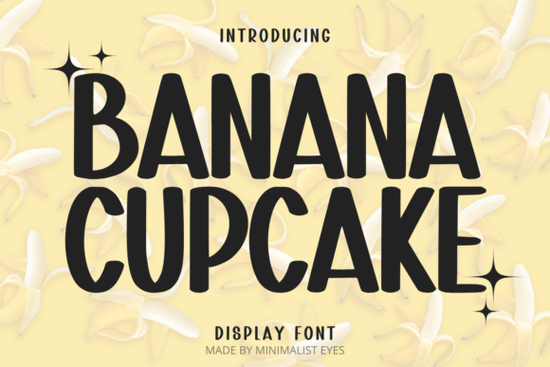
If you're looking for a cheerful, rounded typeface that works across branding, packaging, and creative projects, the Banana Cupcake Font might be exactly what you need. This playful sans-serif stands out with its soft edges and friendly personality, making it a solid pick for anyone who wants their designs to feel approachable and fun without being childish. It comes in OTF and TTF formats, plus a bonus WOFF file for web use.
What Makes This Font Feel So Playful?
The letterforms in Banana Cupcake use rounded terminals and smooth curves that give every character a soft, bubbly look. Unlike harsh geometric sans-serifs, these shapes feel warm and inviting. The consistency across uppercase, lowercase, and numbers keeps your text readable even at smaller sizes, which matters when you're designing for print or packaging where space is limited.
It's the kind of typeface that immediately sets a mood. Whether you're working on a bakery logo, a kids' activity sheet, or a social media graphic, the font does the heavy lifting in terms of tone.
Where Does This Font Work Best?
Because of its rounded, sans-serif style, this typeface fits naturally into a range of design contexts:
- Branding and logos – Perfect for businesses that want a friendly, approachable image like cafés, bakeries, toy shops, or children's clothing brands.
- Product packaging – The letterforms stay clean and legible on labels, boxes, and wraps, even at small print sizes.
- Posters and flyers – Headlines and taglines pop with personality without sacrificing readability.
- Greeting cards and invitations – Its whimsical feel works well for birthday cards, baby shower invites, and party decorations.
- T-shirt and print-on-demand designs – The bold, rounded shapes transfer well onto apparel and merchandise.
- Social media graphics – Add a splash of energy to Instagram posts, stories, and YouTube thumbnails.
If you run a small business or sell on platforms like Etsy or Redbubble, having a versatile playful font like this in your toolkit saves time when you need to create eye-catching designs quickly.
How Does It Compare to Other Fun Sans-Serif Fonts?
Each of these fonts serves a different creative need. The rounded, lighthearted energy of the Banana Cupcake design is what sets it apart from these more structured or elegant alternatives.
Is This Font Right for Your Next Project?
If your design calls for something lighthearted, rounded, and easy to read, this typeface checks all the boxes. It's not trying to be edgy or overly artistic. Instead, it delivers consistent, cheerful personality across different sizes and applications. For print-on-demand sellers, small business owners, and hobbyist designers, it's a reliable addition to a growing font collection.